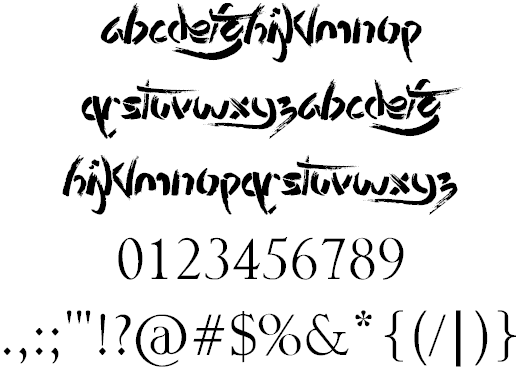
Free Stencil Brush Font
Take a look at this mouth-watering free stencil brush font. Font Space has created this amazing and beautiful free typeface. You can create a professional designs with this beautiful font.